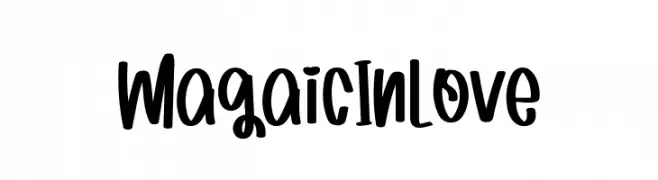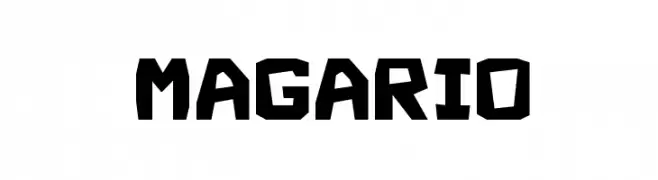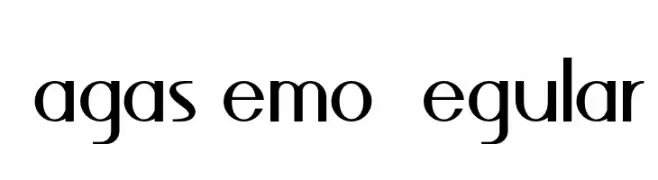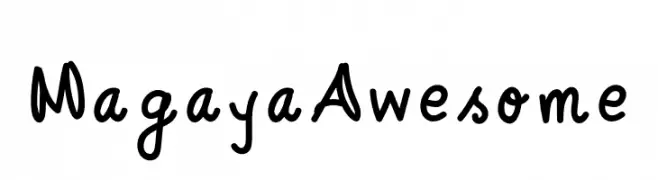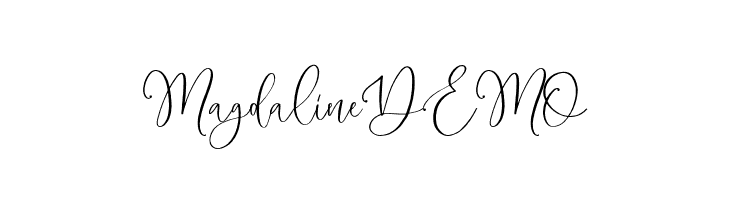
An elegant, cursive font with ornate swirls and a classic calligraphic style.
A bold, angular font with strong geometric shapes and thick strokes.
A modern, geometric font with clean lines and balanced proportions.
A playful, bold font with rounded, blob-like characters.
A playful, handwritten font with dynamic strokes and a whimsical style.
A modern, geometric font with a futuristic and tech-inspired design.
A bold, geometric font with a modern, futuristic style.
A bold, geometric font with a modern and striking design.
A modern, geometric font with rounded edges and consistent line thickness.
A modern, thin, geometric font with rounded corners and a minimalistic style.